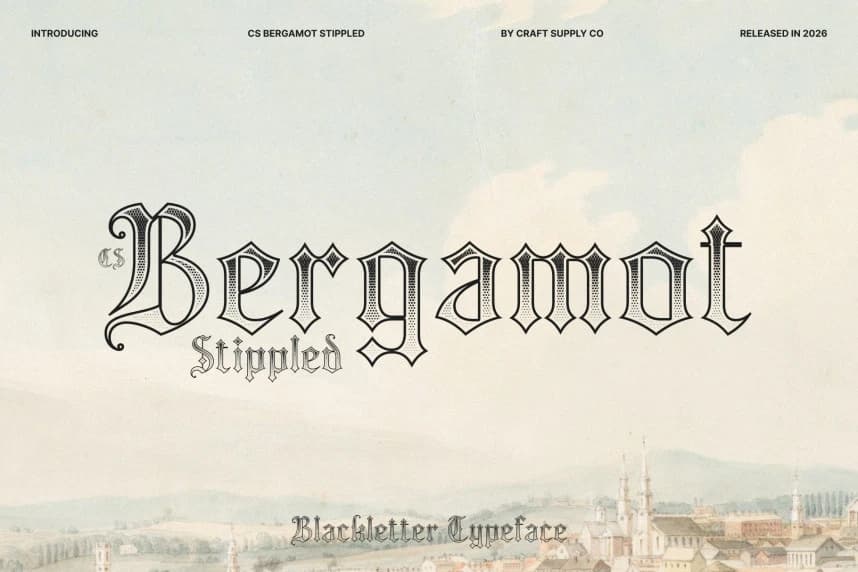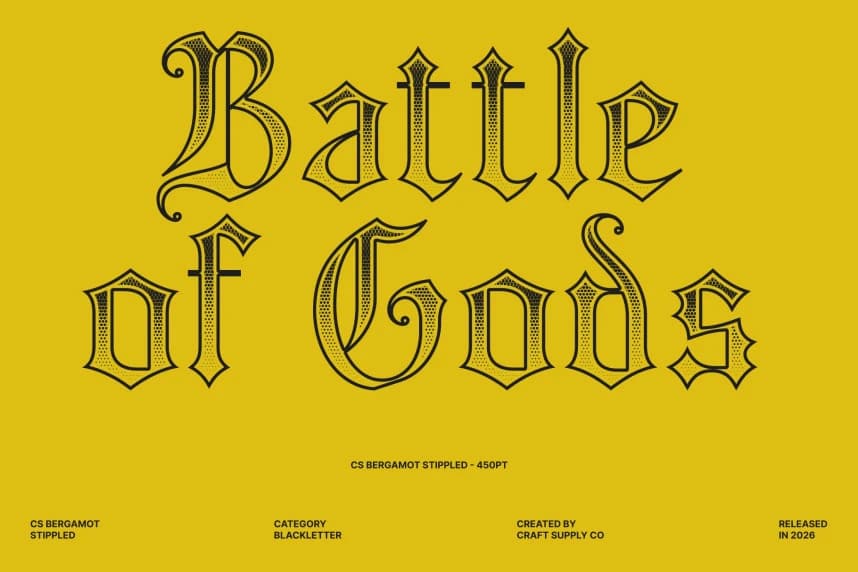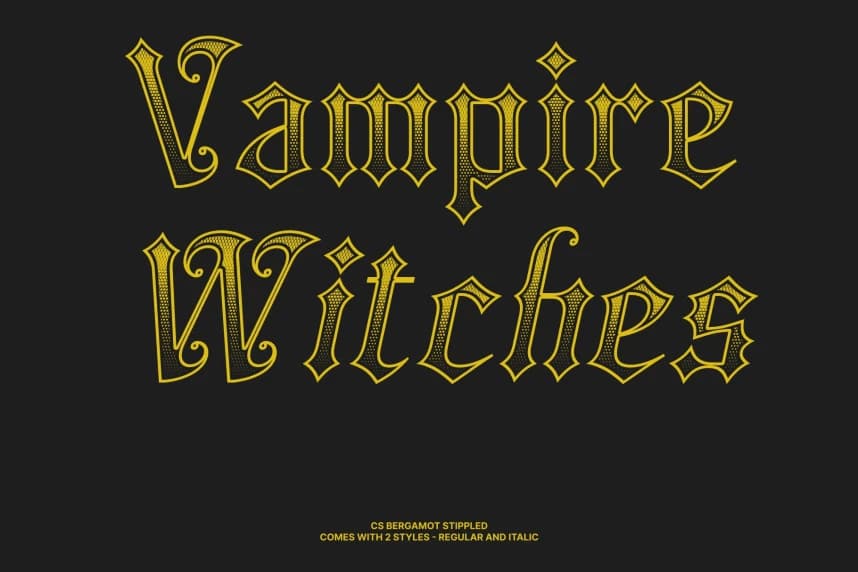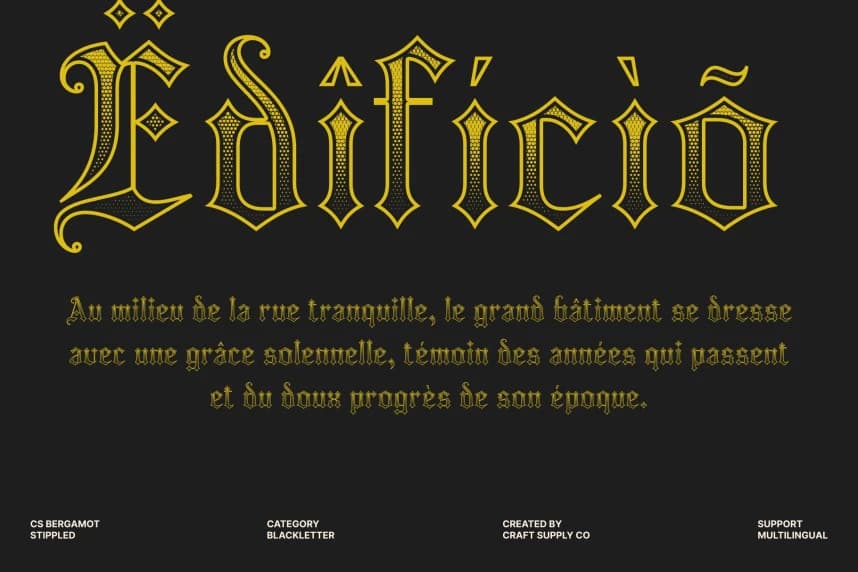
CS Bergamot Stippled Font
CS Bergamot Stippled Font – Blackletter Font: Bold and Decorative with Historical Charm Medieval Blackletter with Stippled Intensity. This is a striking Blackletter display font inspired by the intricate beauty of medieval European manuscripts